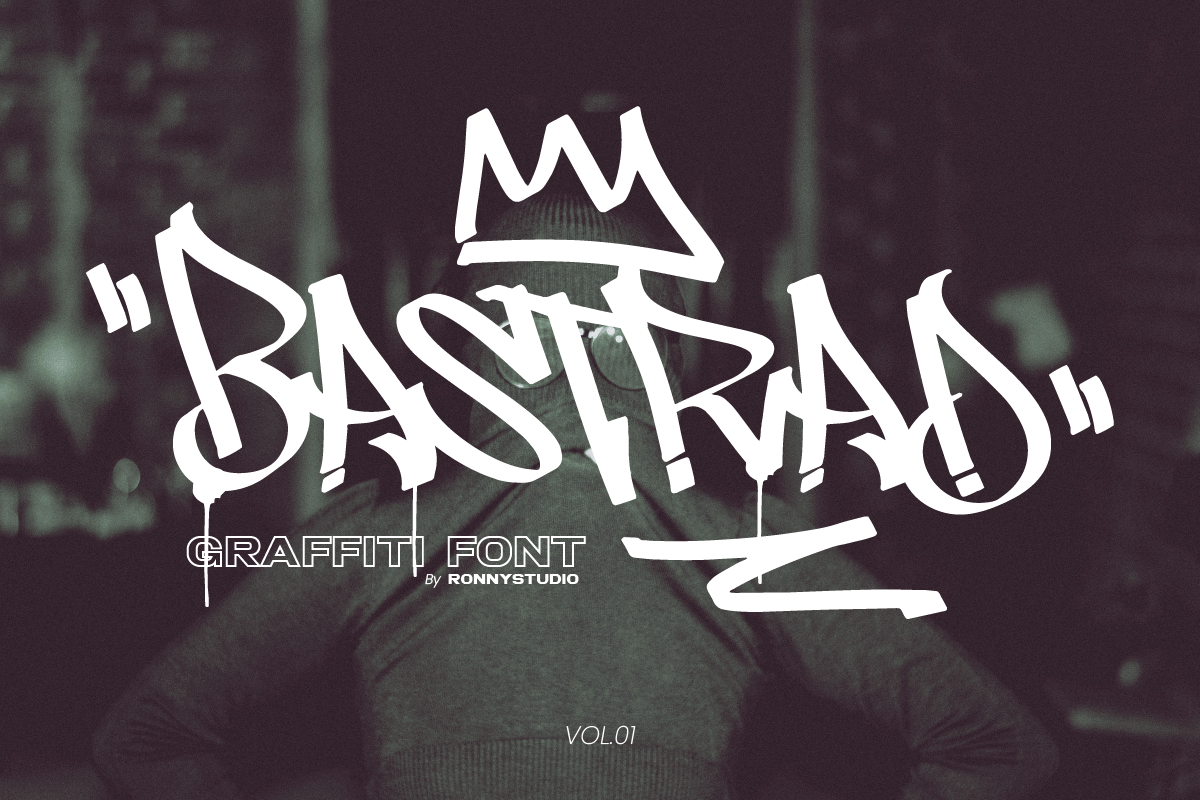
Bastrad Vol.01 Graffiti Font Free Download
The Bastrad Vol.01 Graffiti Font Free Download is a bold and edgy graffiti-inspired typeface that adds an urban, street-art feel to your designs. Perfect for creating striking logos, posters, streetwear branding, album covers, and social media graphics, this font brings a rebellious and artistic touch to any project. Please note, for commercial use, a license must be purchased. You can download it for free for testing purposes.
With its rough, spray-painted style and unique character design, the Bastrad Vol.01 Graffiti Font Free Download is ideal for projects that need to make a strong, creative statement. Whether you're working on a music project, street culture branding, or custom graffiti art, this font will help your designs stand out with its distinctive style.